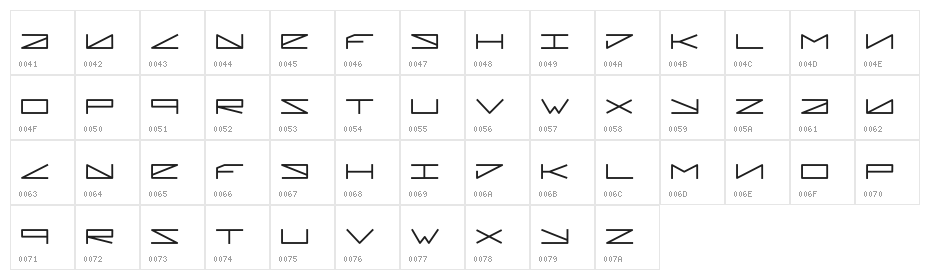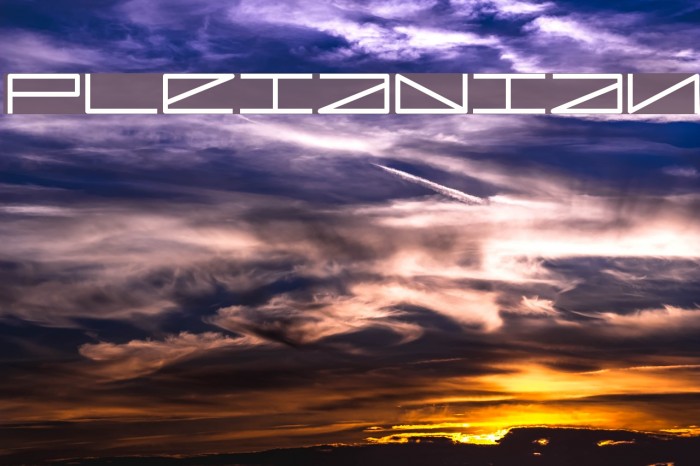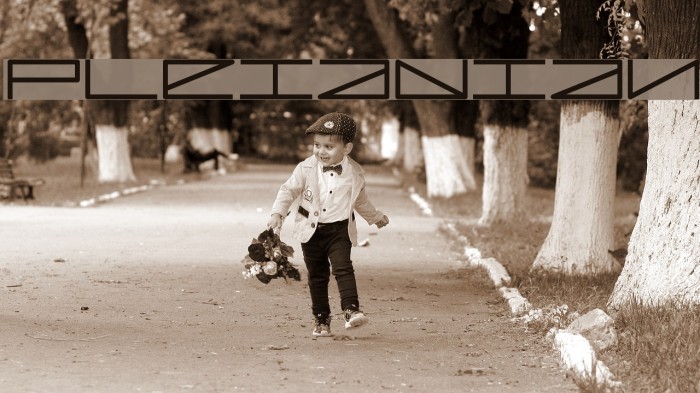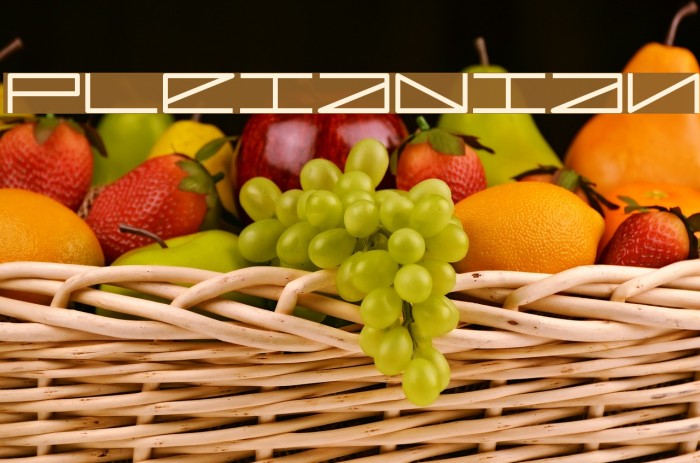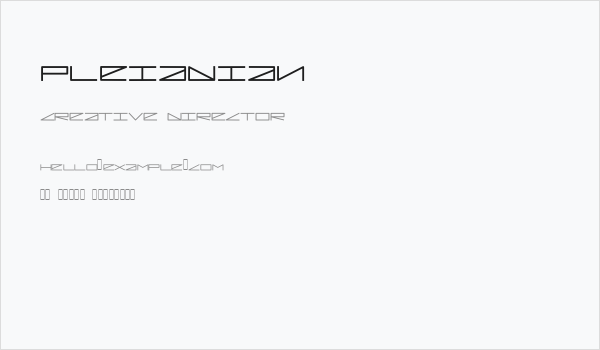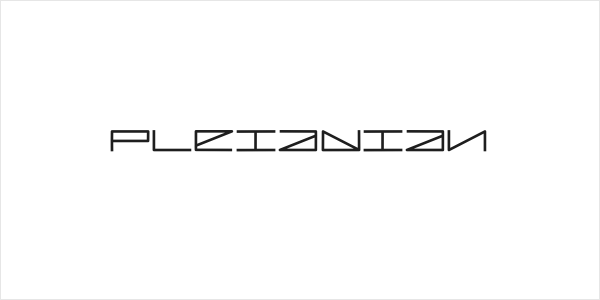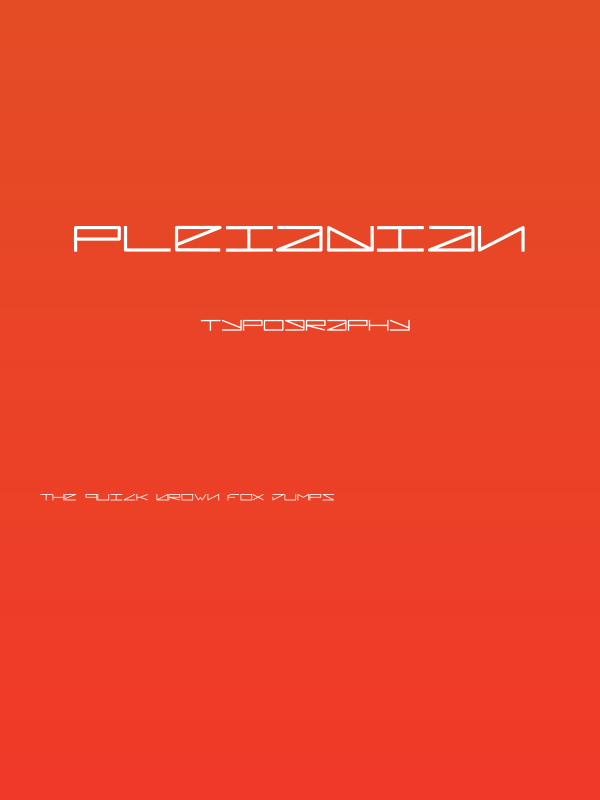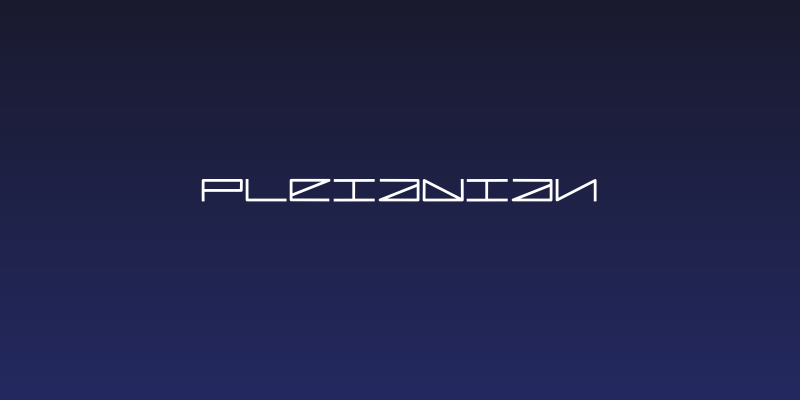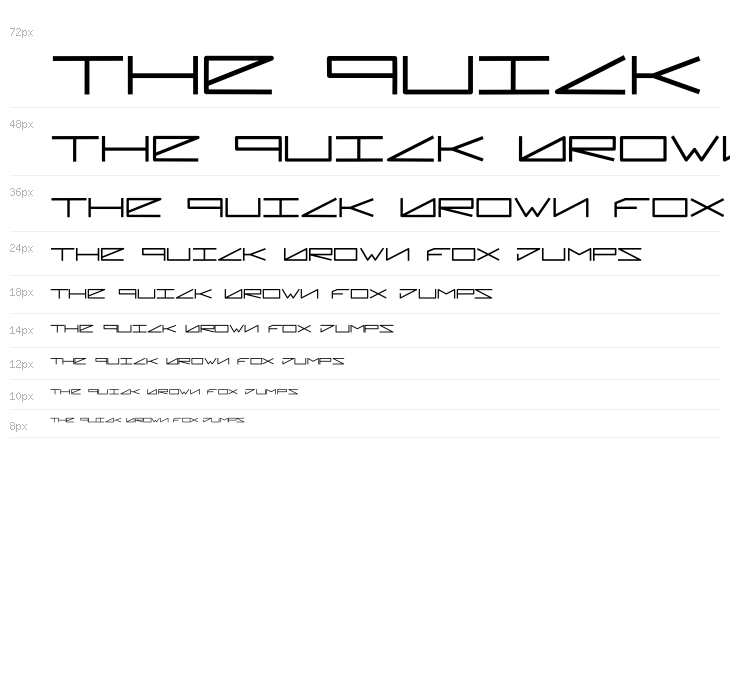
Pleiadian Font
Pleiadian Description
This font features a futuristic and angular design, characterized by sharp edges and geometric shapes. The uppercase letters are uniquely stylized with a consistent angular theme, giving them a modern and tech-inspired appearance. The lowercase letters follow a similar design ethos, maintaining the sharp and edgy look. The numerals are boxy and align with the overall geometric style, while the special characters are crafted to match the angular aesthetic. This font is visually striking and stands out with its distinctive and unconventional forms.
| Proposed Projects | Ideal for sci-fi themed projects, technology branding, video game titles, and futuristic posters. |